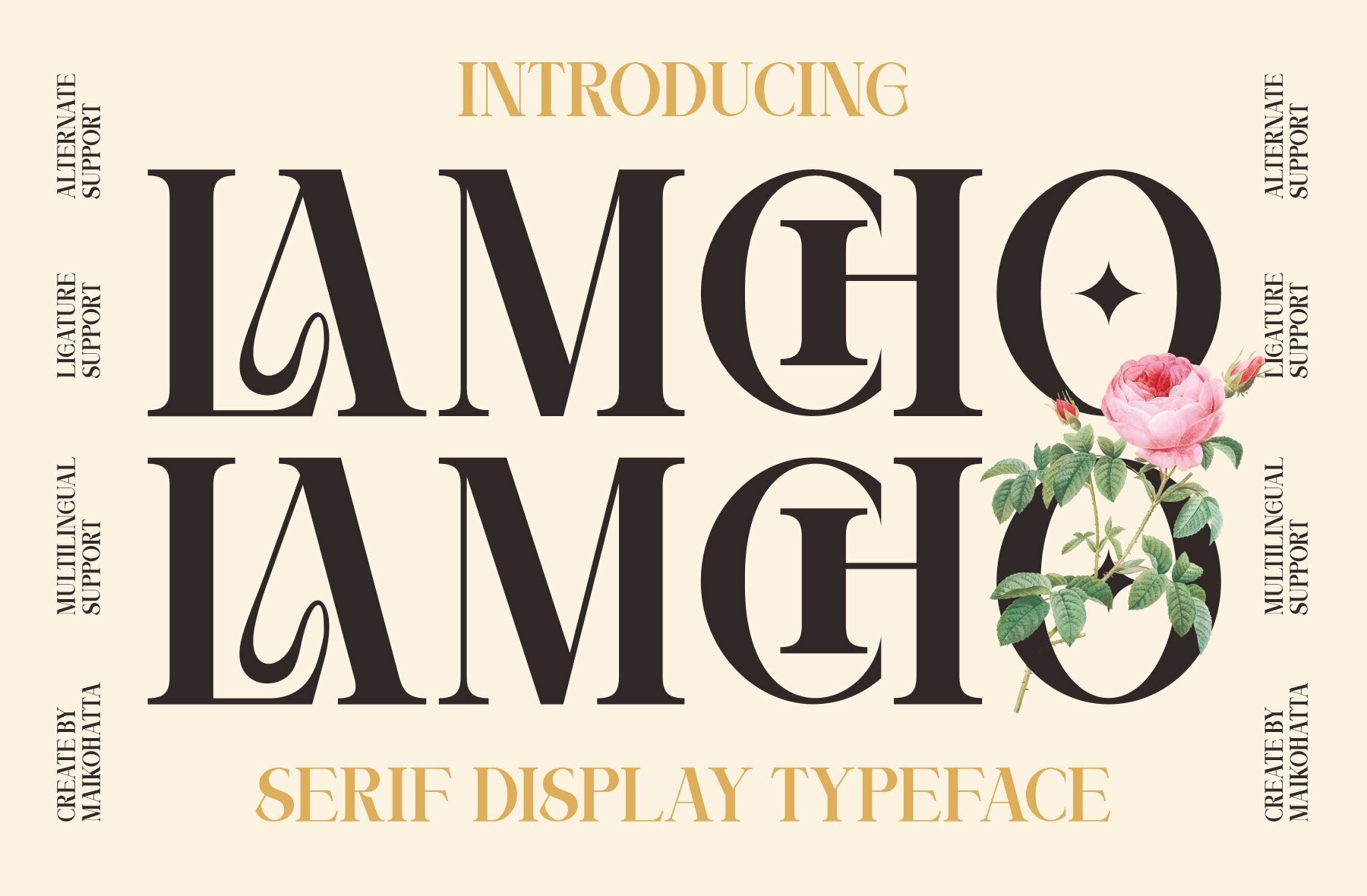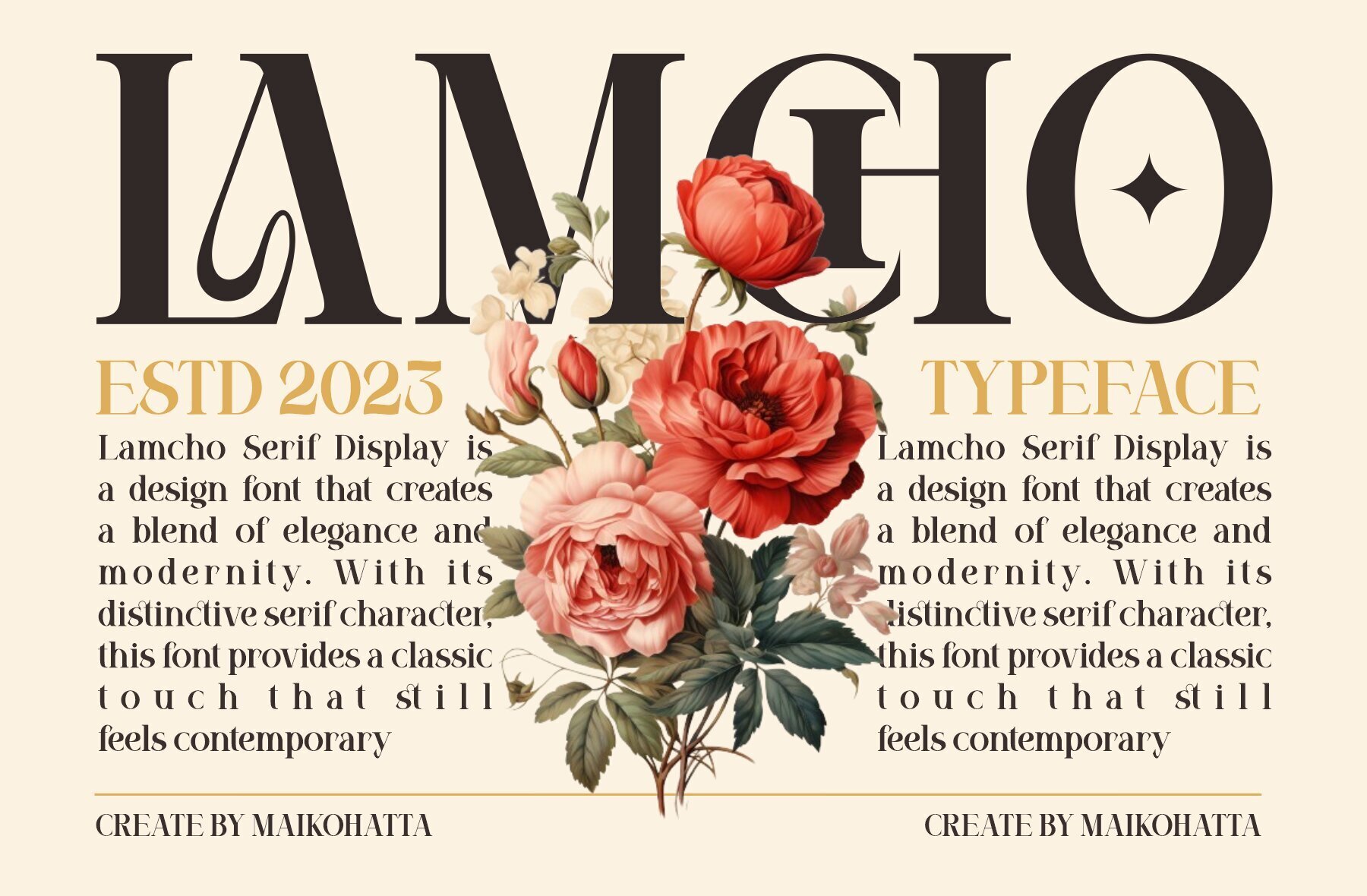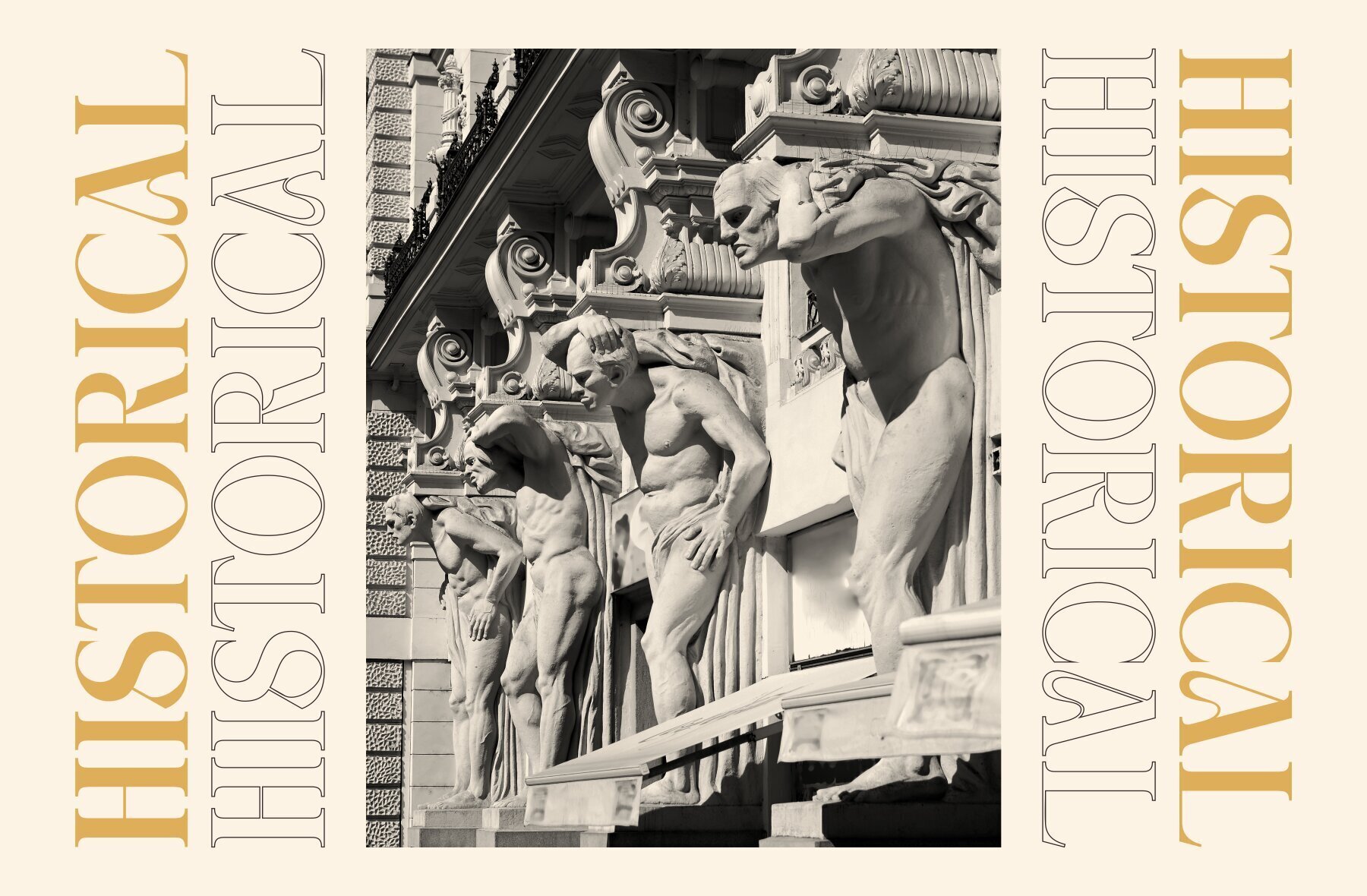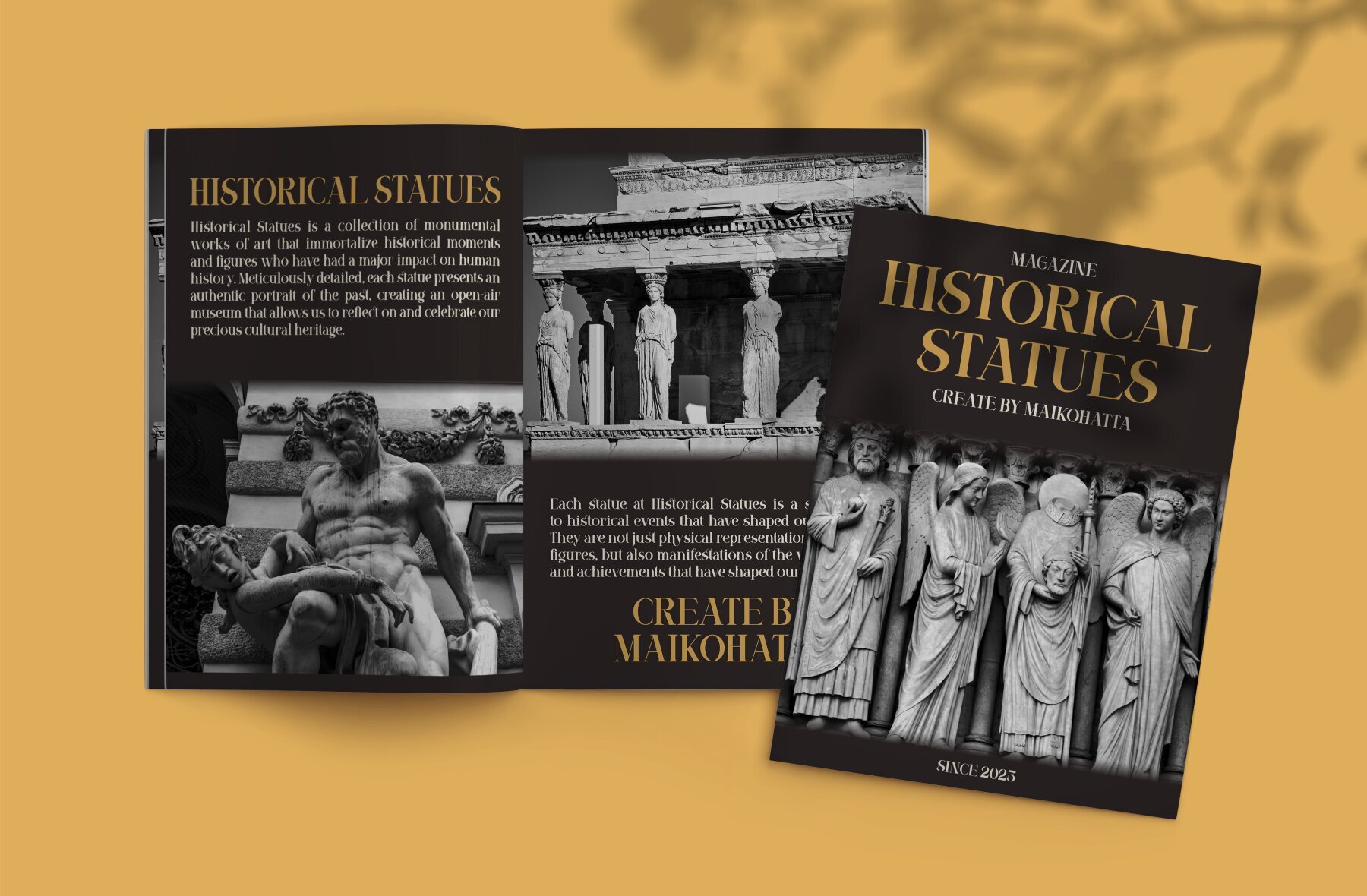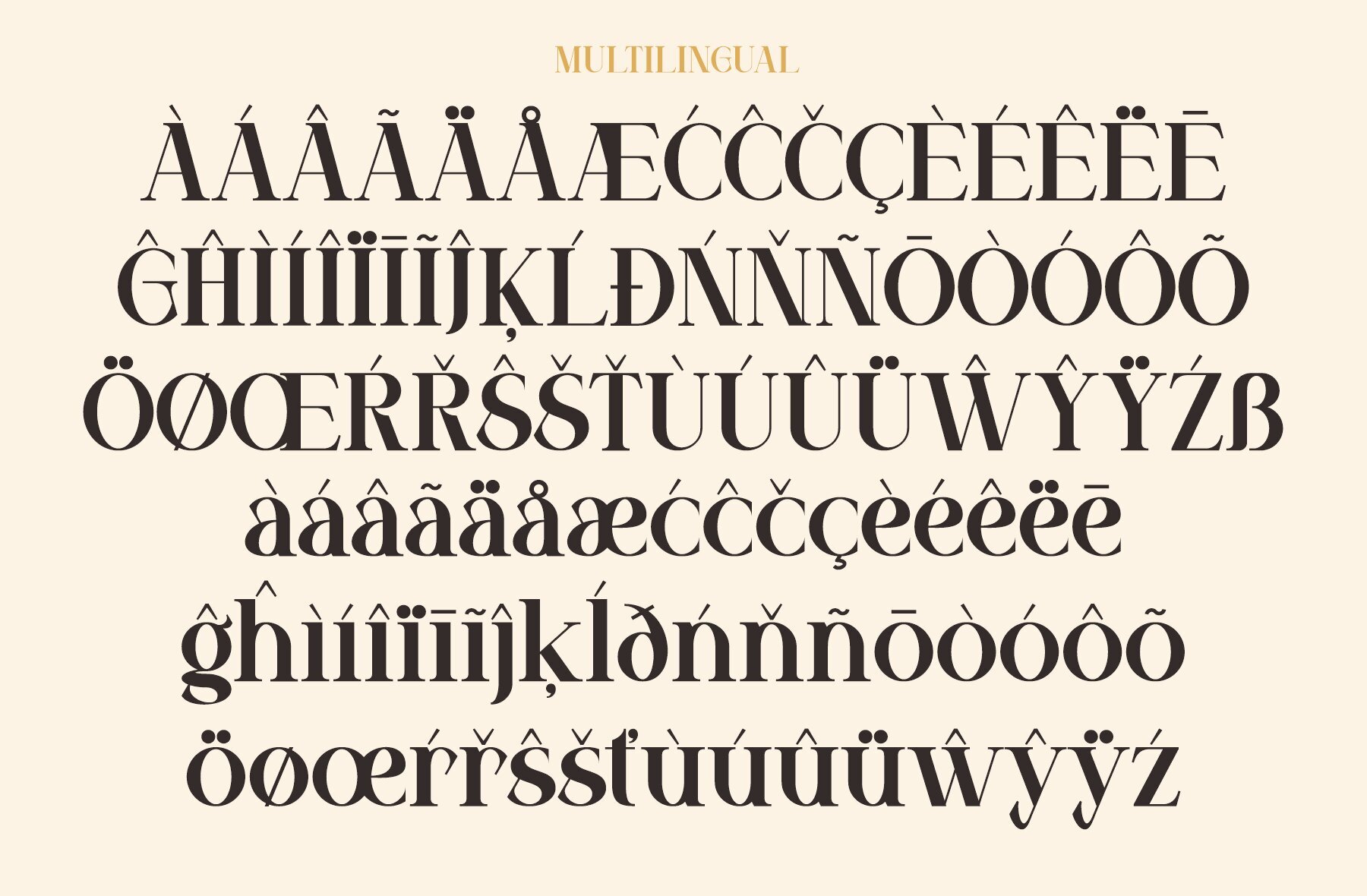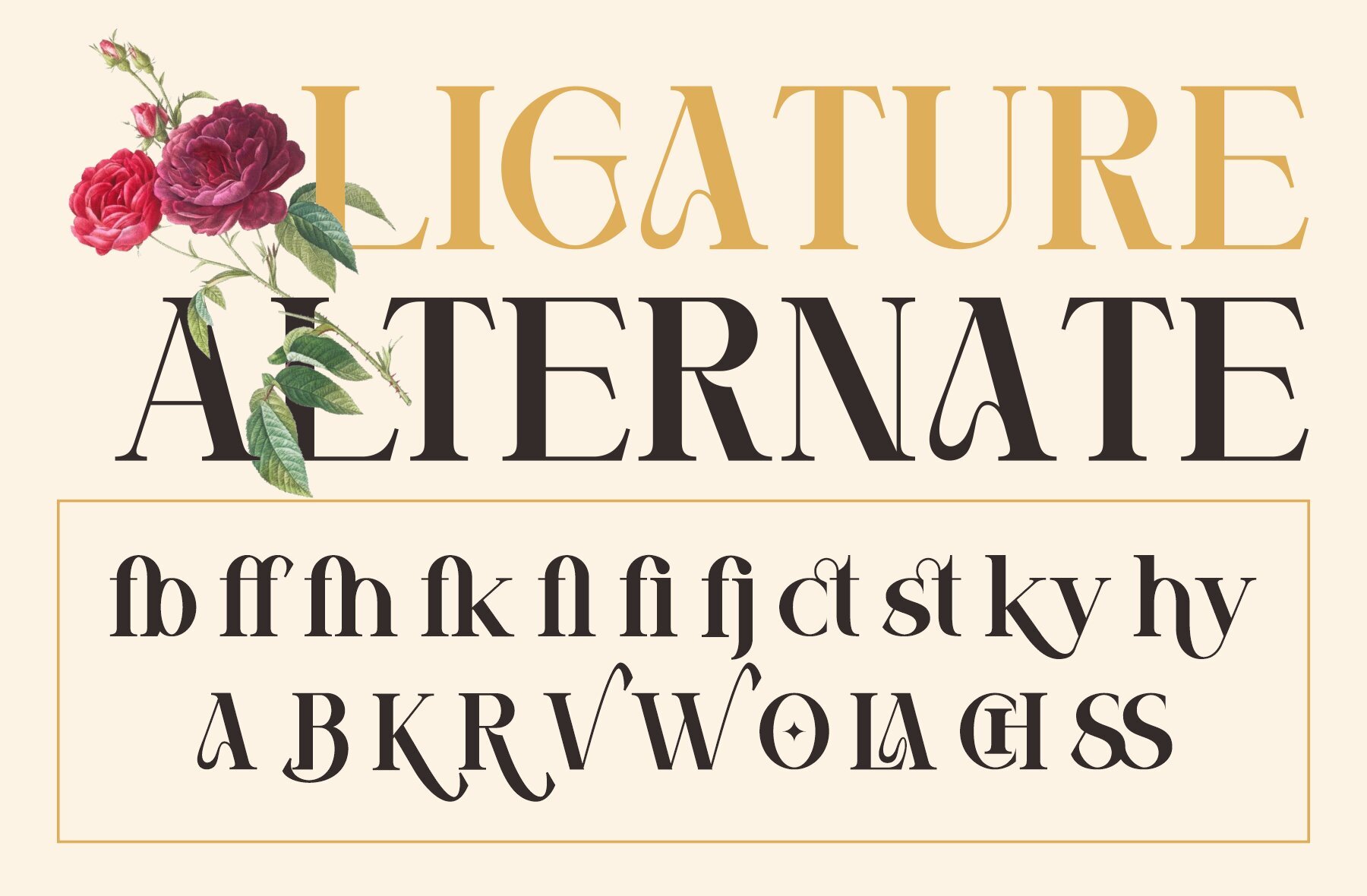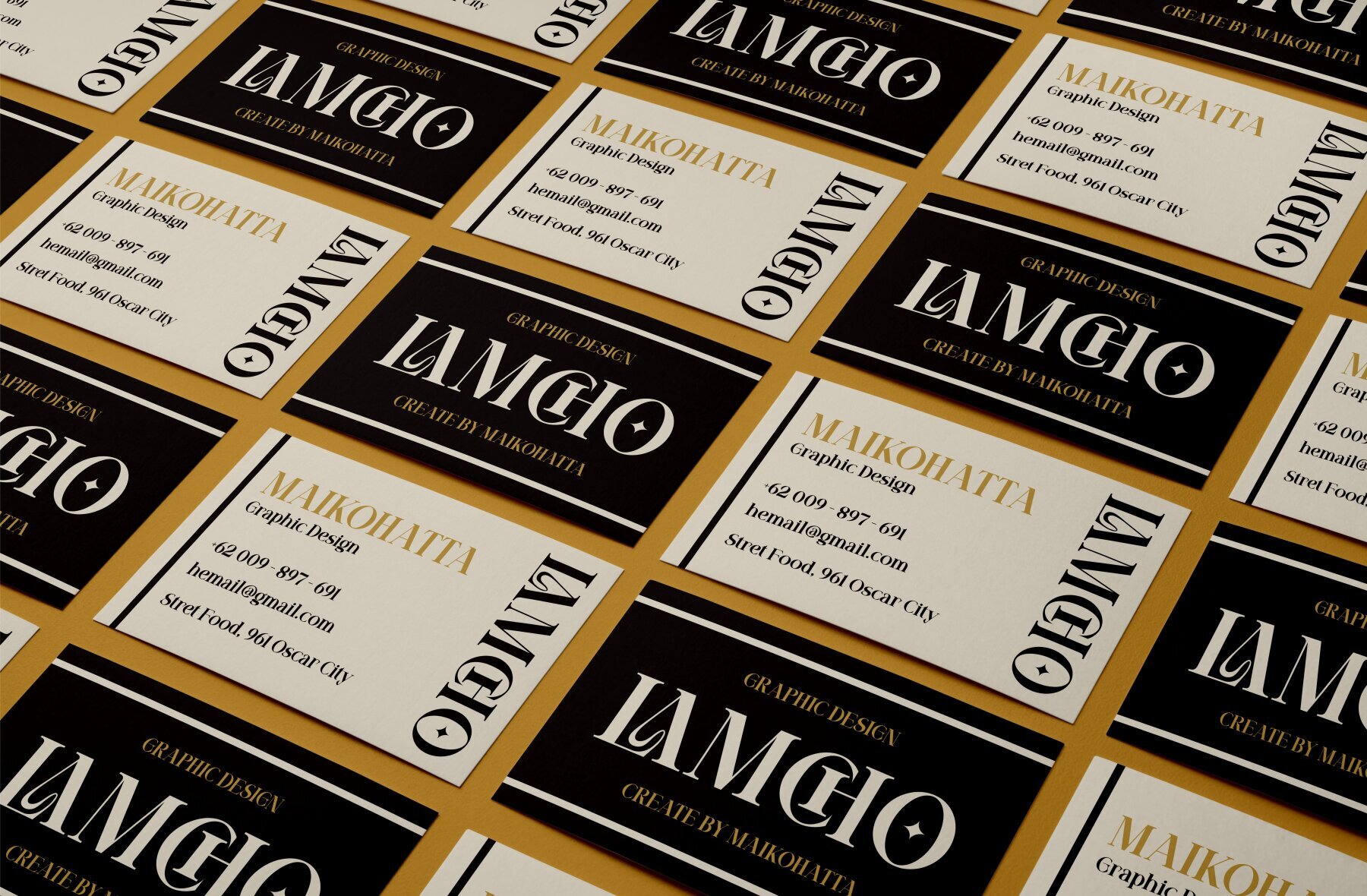
Lamcho Font
Lamcho Regular
This elegant and classic serif font is perfect for projects that require a sophisticated and traditional look. With its high-contrast strokes, it's ideal for headings, titles, branding, and editorial design. Use it in magazines, newspapers, book covers, and posters to achieve a timeless and formal aesthetic.